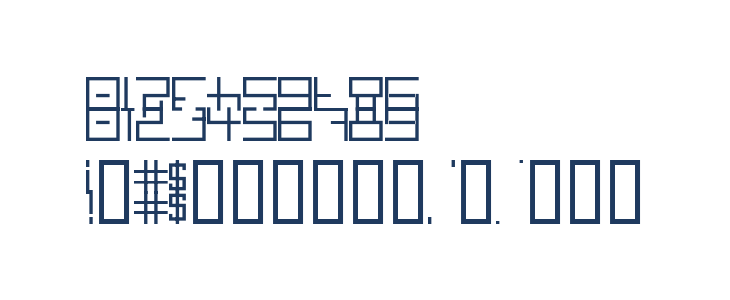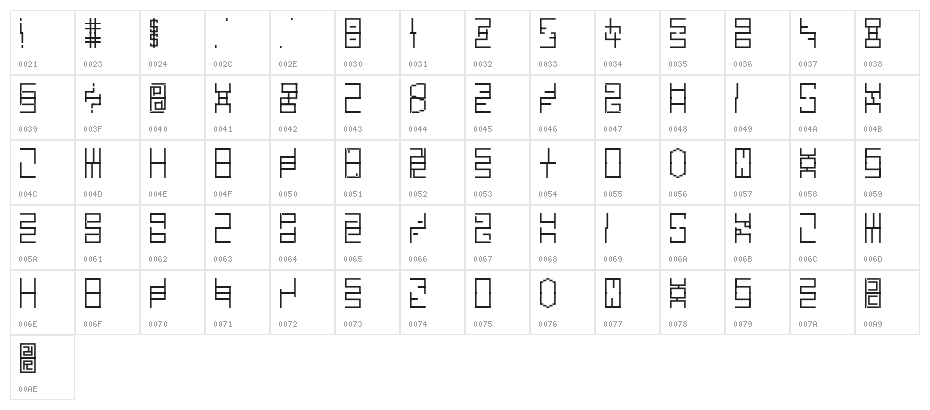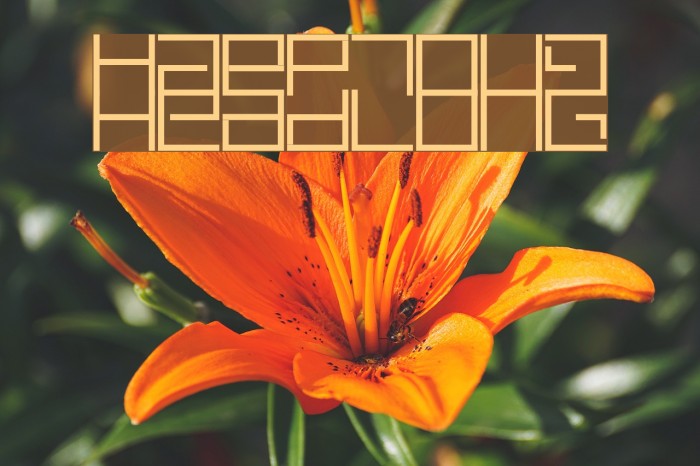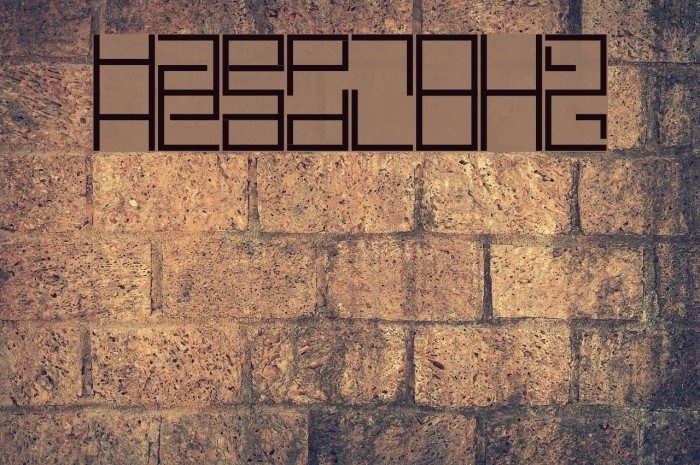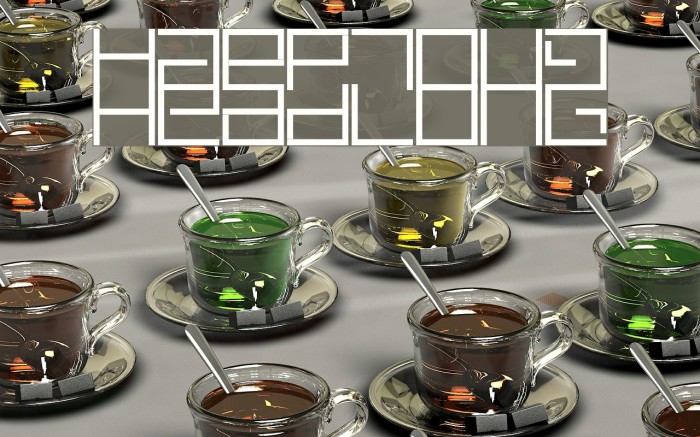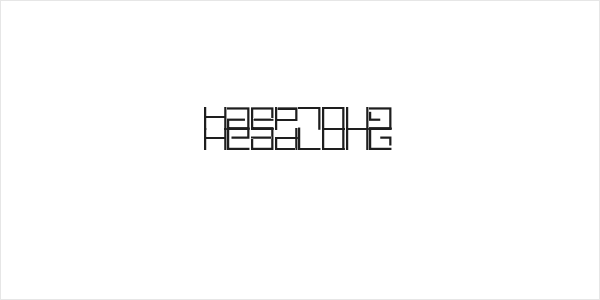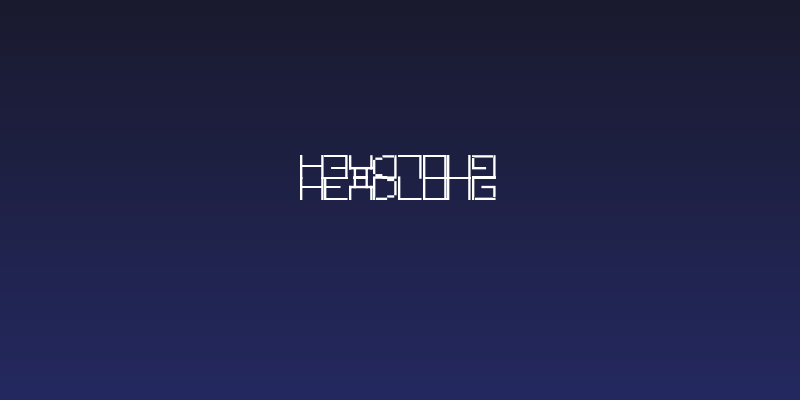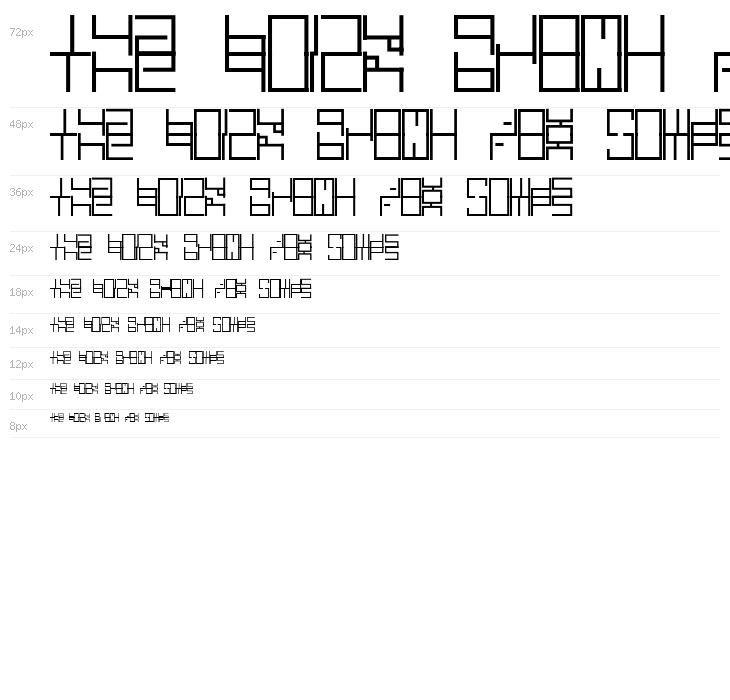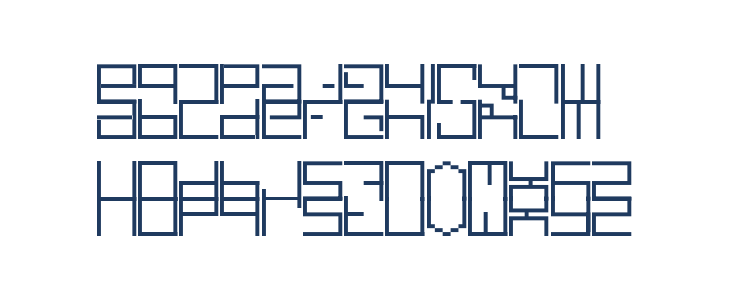
Headlong Font
Headlong Description
This font features a highly geometric and grid-like structure, characterized by its uniform line thickness and angular design. Each character is constructed with a series of straight lines and right angles, creating a digital or mechanical aesthetic. The uppercase and lowercase letters maintain a consistent height, contributing to a monospaced appearance. The numerals and special characters follow the same design principles, ensuring a cohesive look across all glyphs. This font's rigid and structured form makes it stand out as a modern and futuristic typeface, suitable for digital displays or tech-themed projects.
| Use Case | Logos, Headlines, Digital displays |
| Proposed Projects | Ideal for digital displays, tech-themed branding, futuristic posters, and video game interfaces. |